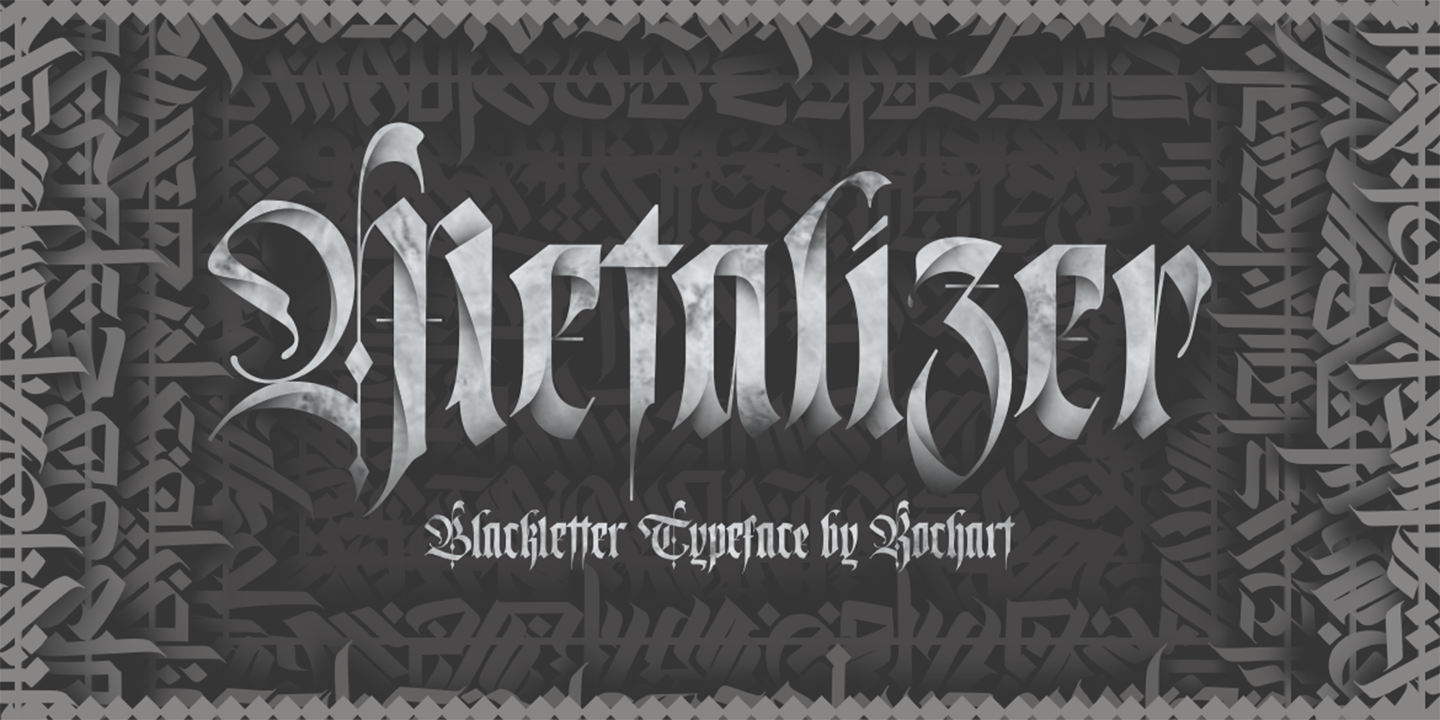
Metalizer Font is perfect for heavy metal band logos, industrial machinery branding, gaming tournament posters, automotive workshop signage, tech startup identities, robotics company materials, cyberpunk movie titles, construction equipment labels, and extreme sports event promotions.
What makes Metalizer Font so exciting is its powerful industrial strength and razor-sharp metallic edge that commands attention and respect. This commanding typeface combines aggressive angular forms with precision-engineered details, creating an unstoppable visual impact that embodies strength, durability, and cutting-edge technology in every letterform.
Metalizer Font family includes multiple industrial variations: Regular weight, Heavy metal bold, Light steel version, Condensed titanium style, Extended chrome format, Distressed rust effects, and Outline blueprint edition. Each family member maintains the signature metallic power while offering versatility for different industrial design applications and high-impact projects.
Unleash the raw power of Metalizer Font Free Download - a typeface that brings industrial strength and metallic precision to your boldest creative projects. Whether you're designing heavy machinery branding, gaming interfaces, or high-tech product launches, this font delivers uncompromising visual impact that resonates with audiences seeking power and performance.
The versatility of Metalizer Font dominates both digital and print industrial applications. It performs exceptionally in website headers, mobile gaming interfaces, product packaging, and large-scale signage, maintaining its metallic intensity across all platforms. The font's engineered spacing ensures maximum readability while preserving its aggressive industrial character.
Professional designers consistently choose Metalizer Font for projects requiring strength and technological edge. Its commanding presence makes it ideal for brands focused on innovation, power, and industrial excellence, helping establish authority and credibility with audiences who value performance and cutting-edge design.